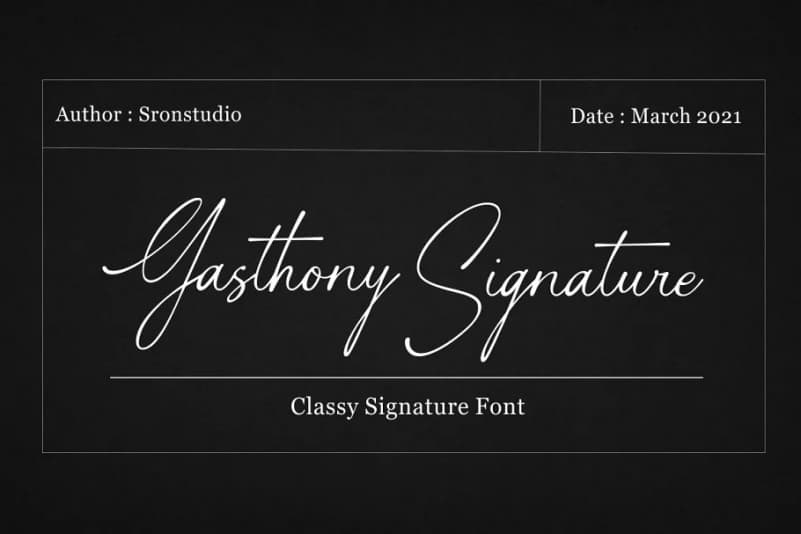
Gasthony Signature Font
Gasthony Signature Script Font, a quality script that is written casually and quickly. Letters are made with Sign on paper. Then scanned and carefully drawn into vector format. Perfect for branding, invitation, stationery, wedding designs, social media posts, advertisements, product packaging, product designs, label, photography, watermark, special events, and more.